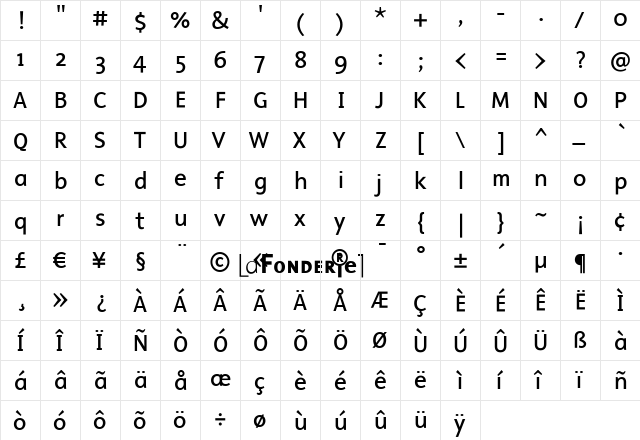
Malcom Medium Font Preview
Malcom Medium
Design Context for Malcom Typeface
Malcom is a composed and adaptable typeface that performs quietly and consistently across a wide range of design contexts.